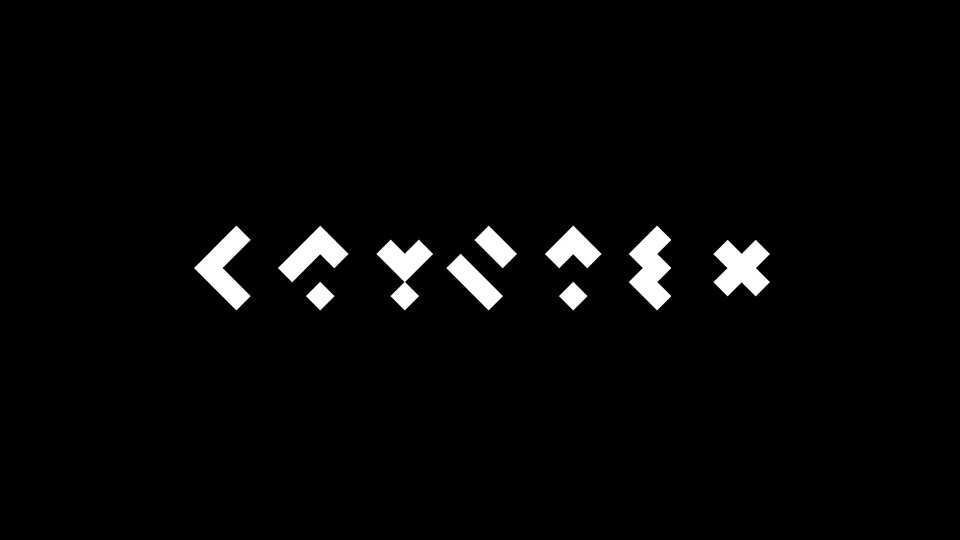
Download Cryptex font, a conceptual typography experiment, based on the idea of simplicity and bold geometry. It reminds of both ancient glyphs and cryptography.
Designer: Simon Thordal